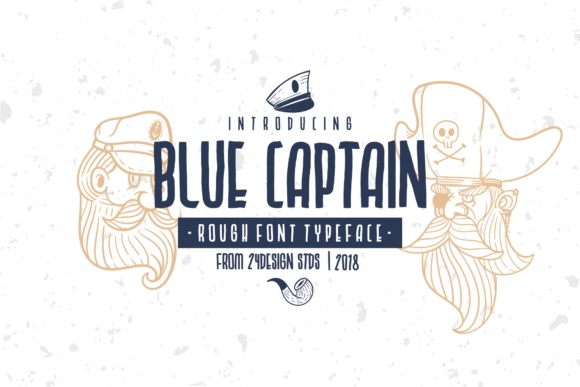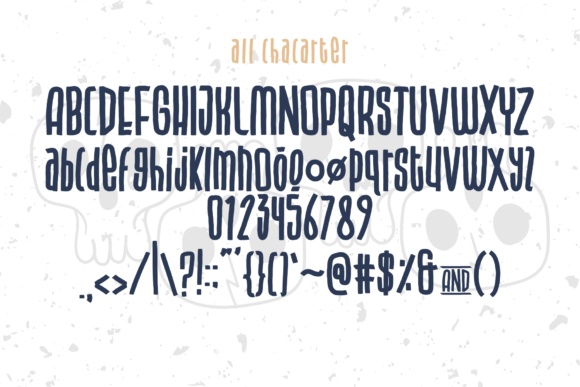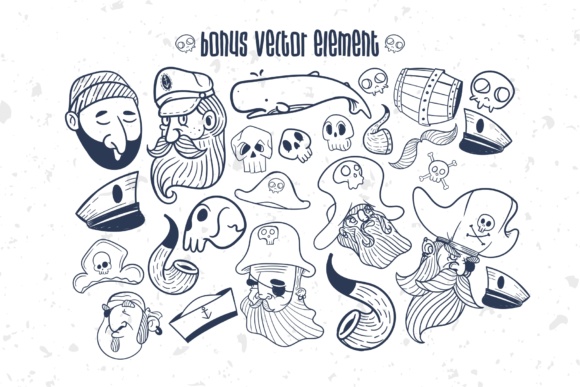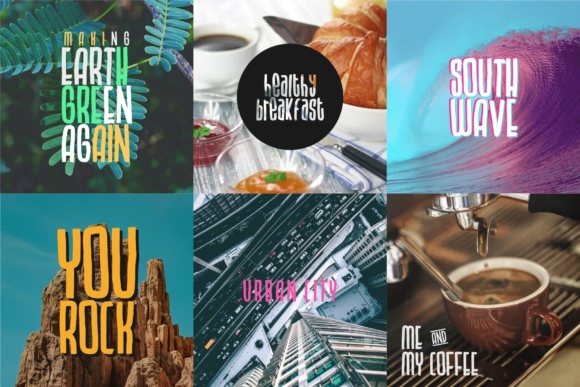
Blue Captain Font: A Bold Display Font for Vintage Logo Design
About the Blue Captain Font
Add a touch of class to your work with the Blue Captain Font, a truly exceptional typeface. The Blue Captain is a font with a rough, masculine style. It’s suitable for something that is as pleasant as it is installed for Instagram story’s, but can also be used for logos, posters, headers, and other designing needs!
Included as a bonus is a vector element with the theme of sailors and pirates.
Blue Captain’s rugged charm makes it ideal for headlines, branding projects evoking adventure or a nautical theme, and posters requiring a bold statement. Its strong character, however, makes it less suitable for body text or UI elements where readability over extended lengths is crucial. Avoid using it for lengthy paragraphs or small sizes.
The font’s inherent boldness pairs well with clean sans-serif fonts like Open Sans or Montserrat for a balanced contrast. For a more playful feel, consider pairing it with a rounded geometric sans-serif. If a more sophisticated look is desired, a classic serif like Garamond or Didot could add elegance and counter the roughness of Blue Captain.
Blue Captain projects a bold, rebellious, and adventurous personality. Brands focused on outdoor pursuits, maritime themes, or products with a strong masculine appeal will find it particularly effective.
Blue Captain Font Usage Examples
Blue Captain Font Example